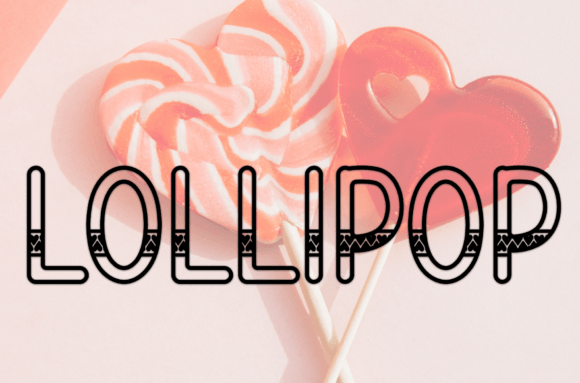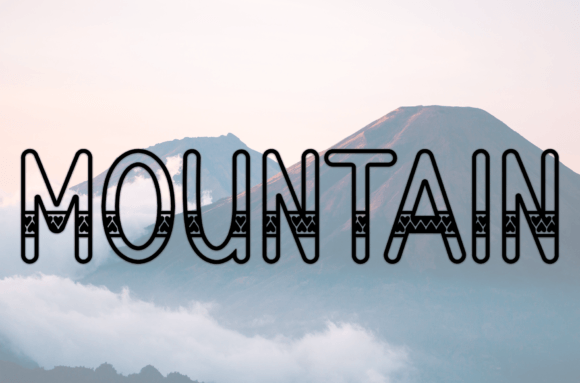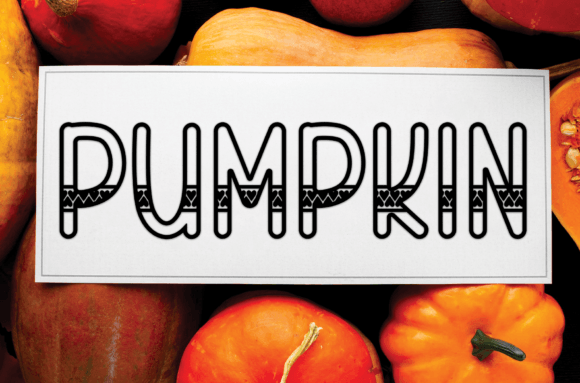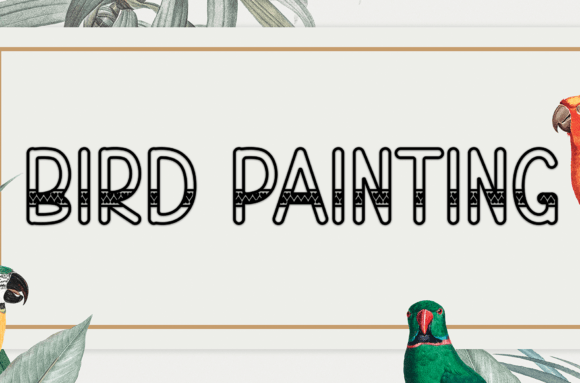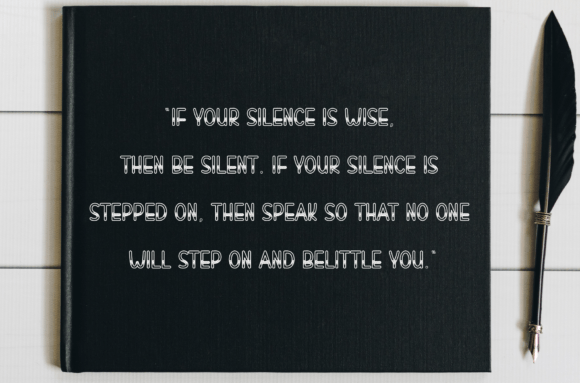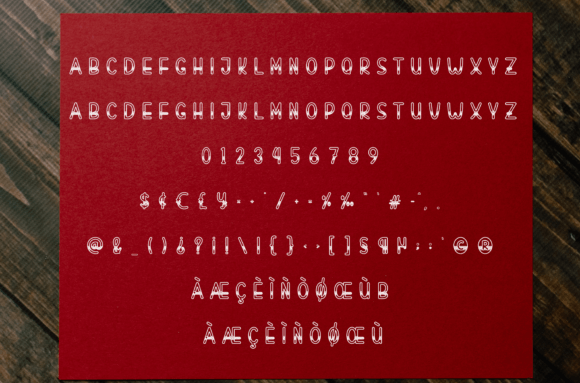
Batik Dress Font: Add a Touch of Whimsy to Your Designs
Are you looking for a font that can add a dash of fun and friendliness to your designs? Look no further than the Batik Dress font! This sweet and charming display font is perfect for creating eye-catching wedding invitations, greeting cards, and other designs that require a playful touch.
What is Batik Dress Font?
Batik Dress font is a unique and creative typeface designed to bring a sense of joy and playfulness to your designs. Its cute and fun appearance makes it an ideal choice for designers and crafters who want to add a personal touch to their work. Whether you’re creating wedding invitations, birthday cards, or social media graphics, Batik Dress font is sure to make your designs stand out.
Key Features of Batik Dress Font
- Cute and Friendly Design: Batik Dress font boasts a sweet and friendly design that’s perfect for creating designs that require a personal touch.
- Display Font: This font is specifically designed as a display font, making it ideal for headlines, titles, and short texts.
- Playful and Fun: Batik Dress font has a playful and fun appearance that’s sure to add a touch of whimsy to your designs.
- Versatile: This font can be used for a wide range of design projects, from wedding invitations to social media graphics.
Use Cases for Batik Dress Font
Batik Dress font is a versatile typeface that can be used for various design projects. Here are some use cases where this font can shine:
- Wedding Invitations: Add a touch of romance and playfulness to your wedding invitations with Batik Dress font.
- Greeting Cards: Create fun and personalized greeting cards for birthdays, holidays, and other special occasions.
- Social Media Graphics: Use Batik Dress font to create eye-catching social media graphics that showcase your brand’s personality.
- Party Decorations: Create custom party decorations, such as banners and signs, with Batik Dress font.
Tips for Using Batik Dress Font
Here are some tips for using Batik Dress font effectively in your designs:
- Pair with Neutral Fonts: Pair Batik Dress font with neutral fonts to create contrast and balance in your designs.
- Use for Headlines and Titles: Use Batik Dress font for headlines and titles to add a touch of whimsy and playfulness.
- Experiment with Colors: Experiment with different colors to find the perfect combination that matches your brand’s personality.
Batik Dress font is a charming and playful display font that’s perfect for designers and crafters who want to add a touch of fun and friendliness to their designs. With its cute and friendly design, versatility, and ease of use, Batik Dress font is an excellent choice for various design projects. So, go ahead and get creative with Batik Dress font – your designs will thank you!
FAQs about Batik Dress Font
- What type of font is Batik Dress?: Batik Dress font is a display font designed for use in headlines, titles, and short texts.